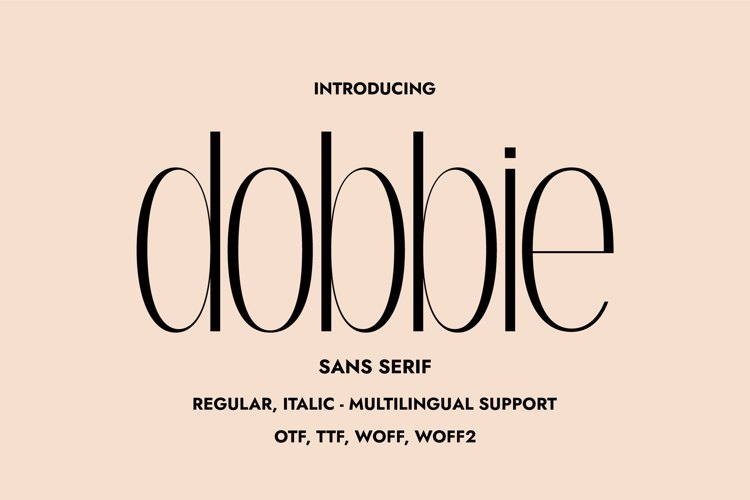
Dobbie Font
๐จ Font Name: Dobbie by Minimalist Art Studio
๐จ Font Description: Dobbie is a chic, minimalist sans serif with tall elegance and multilingual supportโperfect for fashion portfolios, modern branding, and editorial finesse.
โ Complete Latin set + multilingual diacritics
โ Alternates, stylistic sets & ligatures
โ Numbers, small caps, and extended punctuation
โ Bonus italics and family styles